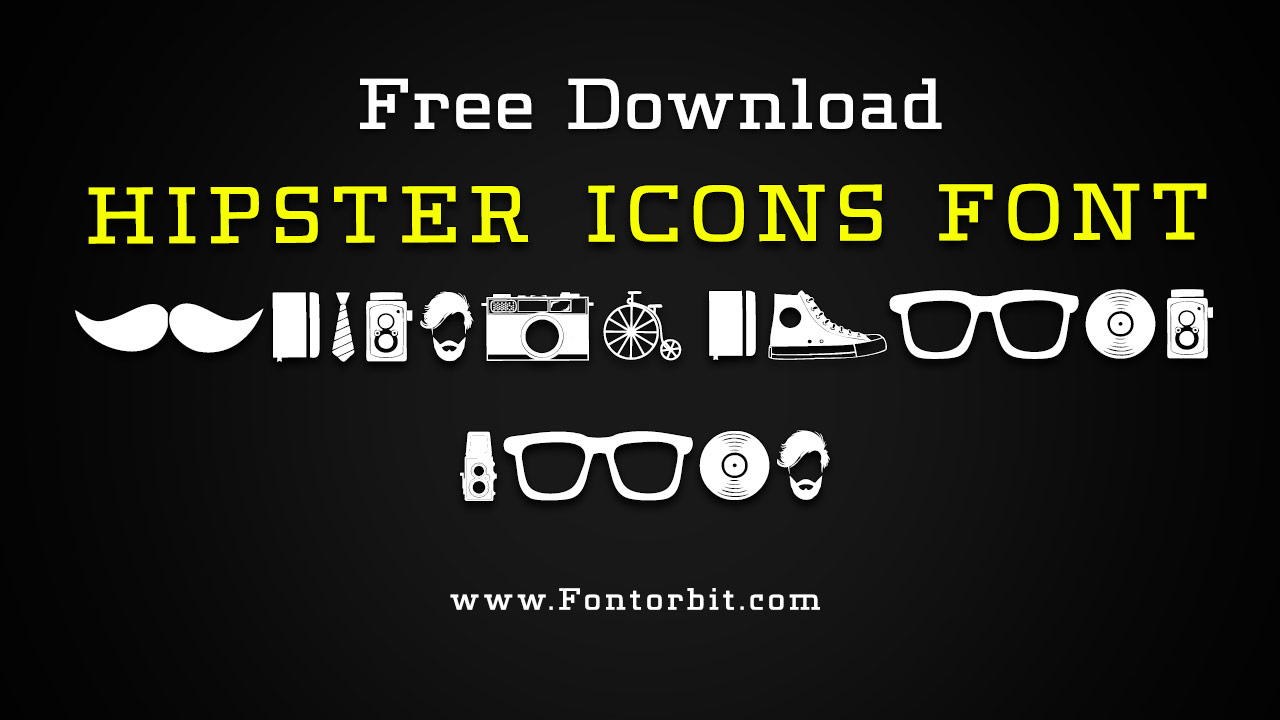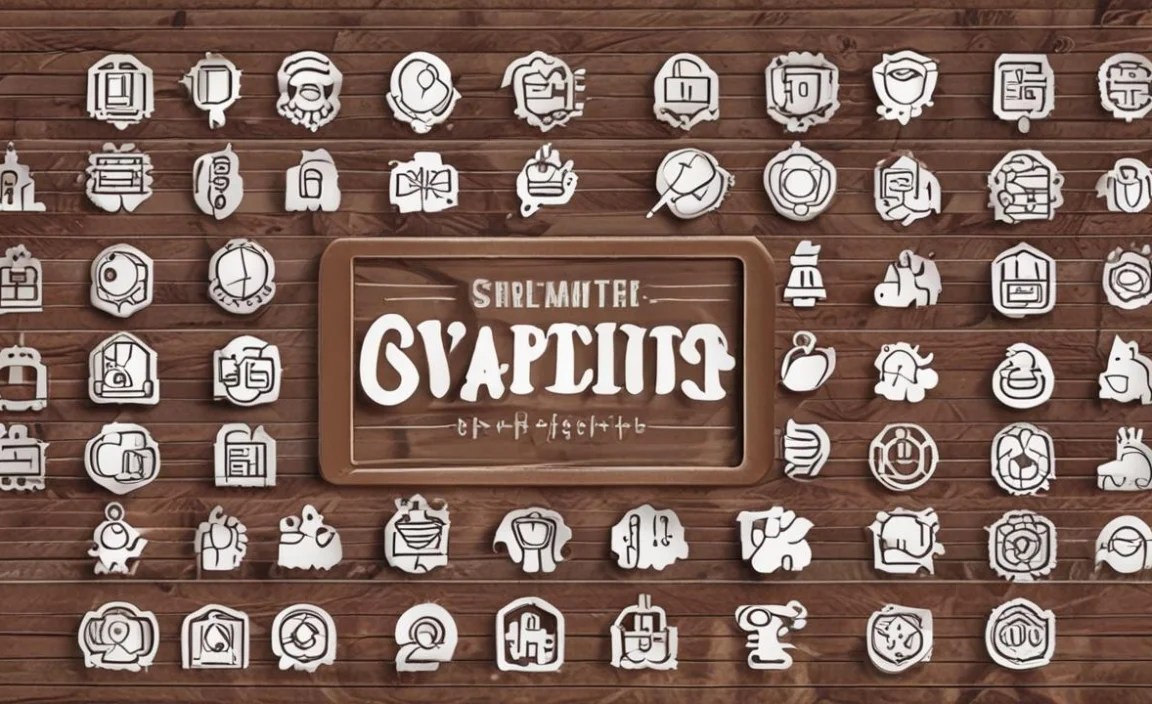
Hipster Icons Font is a versatile typeface known for its distinctive and attractive design. Created by Woodcutter Manero, this font has become popular for its ability to bring a trendy and stylish feel to various design projects.
Featuring a set of dingbats and icons with a hipster vibe, this font is perfect for adding a creative touch to visual content. Its eye-catching appearance makes it a great choice for designers looking to make a bold statement.
Type Of The Hipster Icons Font (Font Family)
Hipster Icons Font is ideal for designers seeking a fun and visually engaging typeface for both personal and professional projects.
- T-shirt designs
- Graphic designs
- Quotes
- Social media graphics
- Brochures and flyers
- Website headers and banners
- Greeting and invitation cards
- Magazine layouts
Hipster Icons Font excels in creating impactful designs, especially those requiring a stylish and contemporary feel. Its collection of icons and symbols makes it an excellent choice for adding a unique artistic flair to various types of media.
Hipster Icons Font is a powerful tool in various design contexts due to its trendy and unique style. The font works exceptionally well in both digital and print media, making it a versatile choice for designers.
Its fun and easy-to-use design integrates seamlessly into a variety of projects, enhancing the visual appeal and making the content more engaging.
2.What Is The Origin Of The Hipster Icons Font?
Hipster Icons Font was designed by Woodcutter Manero. It draws inspiration from hipster culture and modern design trends, combining these influences to create a font that blends style with a sense of individuality.
4.What Makes Hipster Icons Font Unique?
The unique combination of hipster-inspired icons and modern design elements makes Hipster Icons Font stand out. This distinctive style brings a trendy and artistic element to design projects, making it a preferred choice for designers who want to create visually engaging and stylish content.